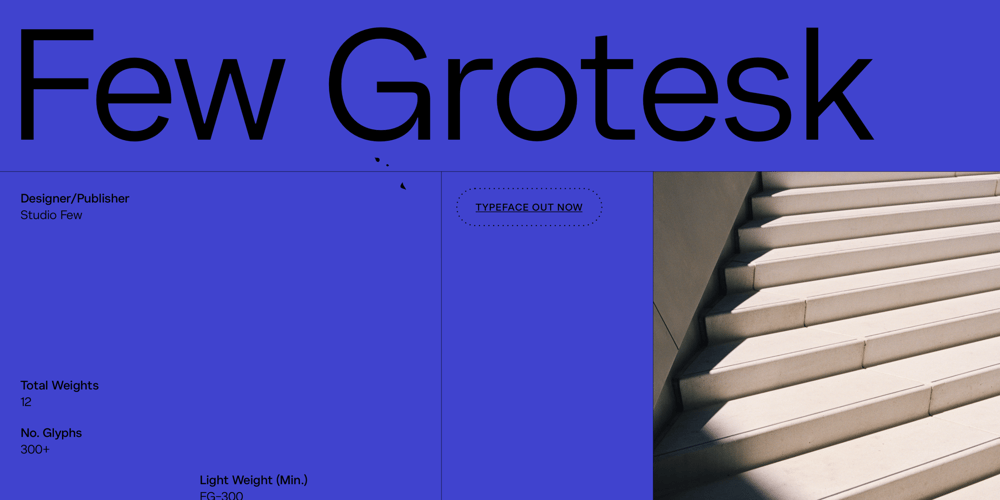
Few Grotesk
Few Grotesk font
Few Grotesk Font Family was designed by Samuel Oakes and published by Studio Few. Few Grotesk contains 12 styles and family package options. Tall X-Height, Angled Terminals and Medium Contrast, Few Grotesk is a UI font designed with personality. Originally conceived as a hybrid between Grotesque & Humanist, Few Grotesk pairs legibility with character.